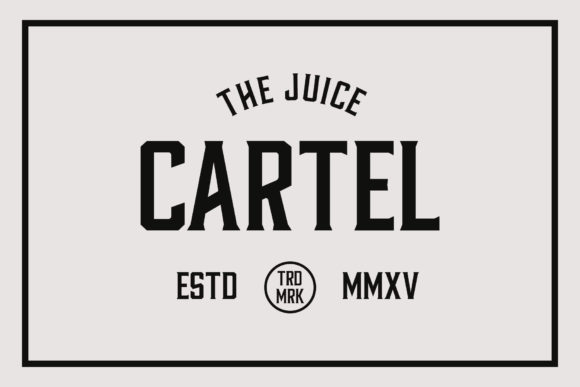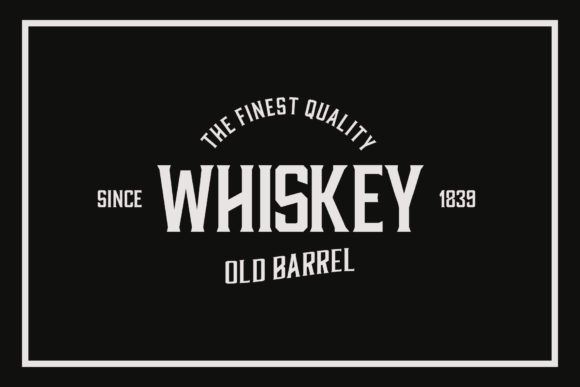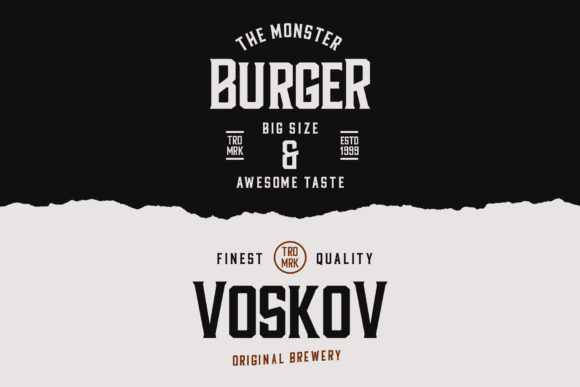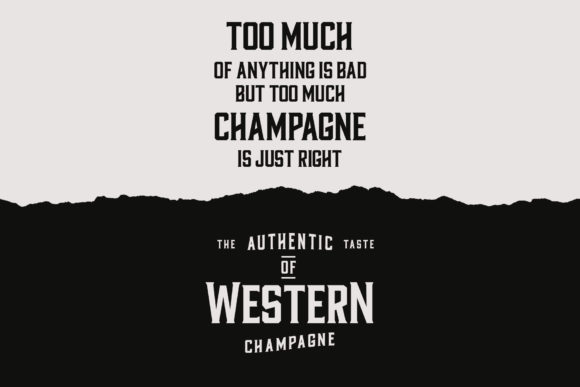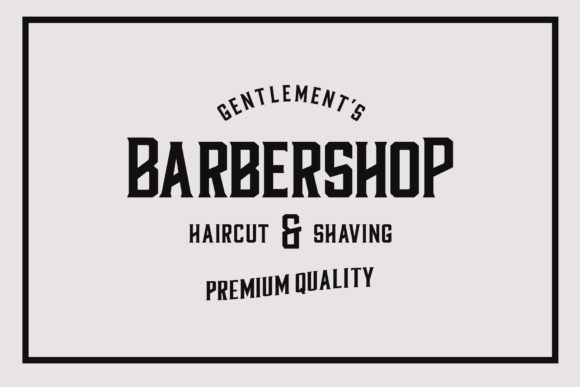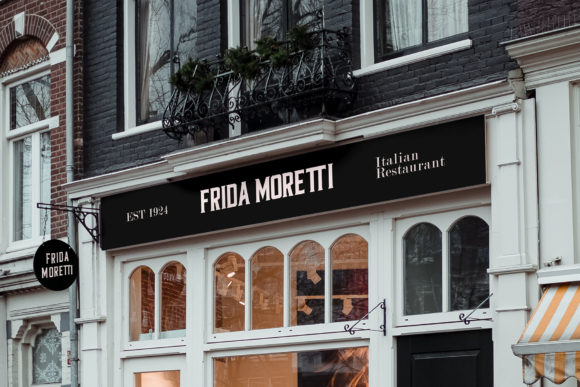
The Secret to Unlocking Your Creativity
Do you ever find yourself staring at a blank page, waiting for the perfect idea to strike? We’ve all been there – the blank canvas, the empty document, the silence of the studio. It’s those moments that can either paralyze us or spark a burst of creativity. And that’s exactly what happened when I stumbled upon the Boredom Font. Its unique blend of vintage charm and bold sophistication immediately caught my attention.
As it turns out, Boredom Font is more than just a stylish addition to your design arsenal. This distinctive font is designed to add a touch of retro flair to any project, from posters to packaging, and everything in between. Whether you’re a seasoned designer or just starting out, this versatile font is sure to breathe new life into your creations.
Boredom Font Key Features
- Font Family: Boredom Font is a unique sans-serif font family designed to convey a sense of monotony and boredom.
- Size: The font family includes a range of weights from Thin (100) to Black (900), providing flexibility for various design applications.
- Resolution: Optimized for high-resolution displays, making it ideal for digital design and print materials.
- Unique Characteristics: Boredom Font features subtle irregularities and asymmetrical letterforms, creating a sense of unease and monotony.
Boredom Font Review
I recently had the chance to work with the Boredom Font and I must say it’s a unique addition to any project. ✨ One of the things I liked about it is its versatility – it can be used for anything from titles to body text, and it still manages to hold its own.
Another aspect that I found appealing is its wide range of weights. ✨ With 12 different weights to choose from, you’re sure to find the perfect fit for your design needs. From the super-light ‘Hairline’ to the bold ‘Black’, it’s easy to create a cohesive look.
What’s Missing?
- ⚠️ Limited international character support, which may be a concern for designers working with non-Latin scripts.
- ⚠️ The font’s quirky nature may not be suitable for all projects, particularly those requiring a more formal tone.
Overall, I think the Boredom Font is a fun and creative choice for designers looking to add some personality to their work. While it may not be perfect, it’s definitely worth considering for the right project. With a little creativity, you can make it shine and add some much-needed flair to your designs.
Tips for Getting the Most Out of Boredom Font
Use the Boredom Font to add a touch of whimsy and personality to your designs. Experiment with different font sizes, colors, and styles to create a unique look. You can also pair the Boredom Font with other fonts to create a visually interesting combination.
The Boredom Font is perfect for:
- Creating eye-catching headings and titles.
- Adding a unique touch to presentations and documents.
- Designing custom typography for marketing materials.